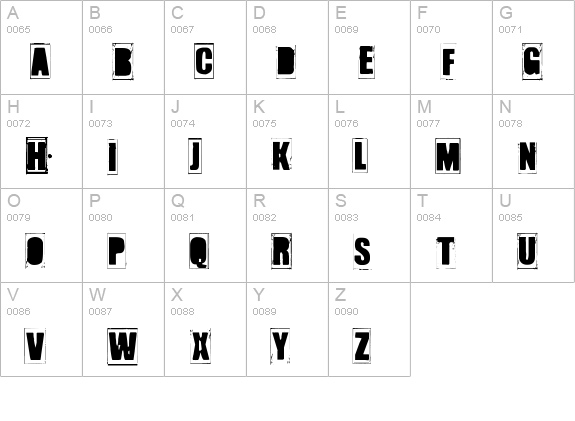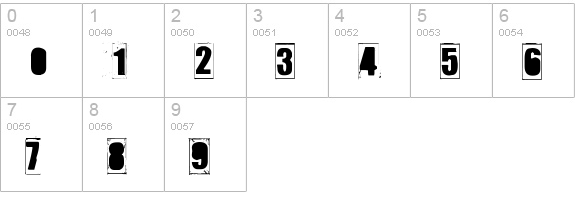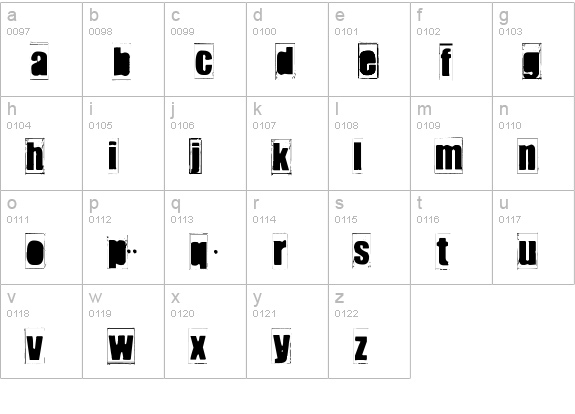
IKHIOOGLA2 Font Details
The IKHIOOGLA2 font is a stunning and unique typeface that exudes creativity and modernity. With its sleek lines and elegant curves, this font is perfect for a wide range of design projects, from branding to advertising to web design. Its bold and eye-catching appearance makes it stand out from the crowd, adding a touch of sophistication to any project. Best of all, the IKHIOOGLA2 font is completely free to download at FontsMarket.com! This means you can easily add this stylish font to your collection without any cost. Whether you're a graphic designer, a web developer, or just someone looking to spice up their documents, the IKHIOOGLA2 font is a fantastic choice. Don't miss out on the opportunity to enhance your projects with this fabulous font - download it today and let your creativity soar!